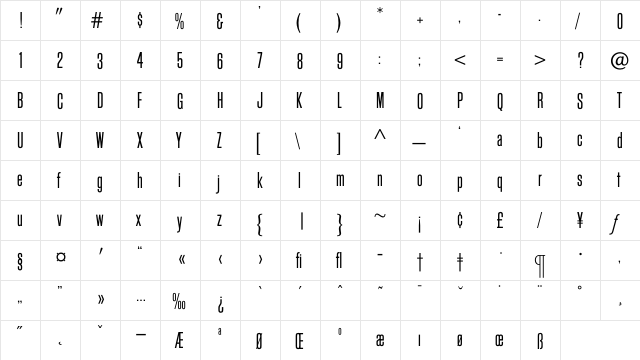
BlockGothicLightExtraCond Regular Font Preview
Design Context for BlockGothicLightExtraCond Typeface
BlockGothicLightExtraCond has the quiet confidence of well-executed sans-serif typography: versatile, unobtrusive, and dependable at any size. The delicate stroke weight brings airiness and refinement to layouts. The condensed width makes it efficient for tight spaces without sacrificing legibility.
A natural fit for high-end product packaging, luxury brand identities, and refined web typography.
Font Pairing: Pair BlockGothicLightExtraCond with a medium or bold serif for headlines — the weight contrast creates an elegant, high-end feel.
Pro Tip: Use BlockGothicLightExtraCond tightly set in headlines and banners — its condensed proportions make it ideal for maximum impact in minimum horizontal space.